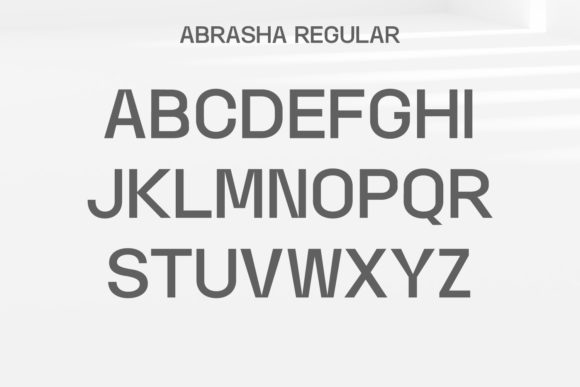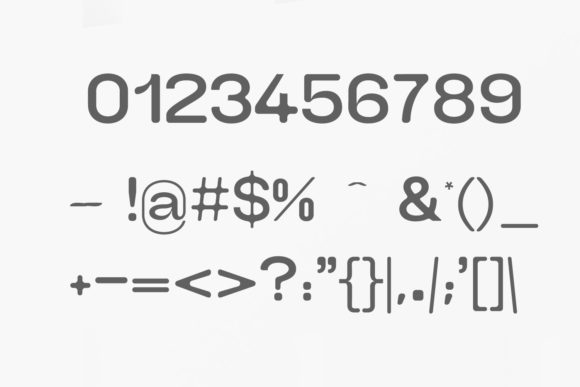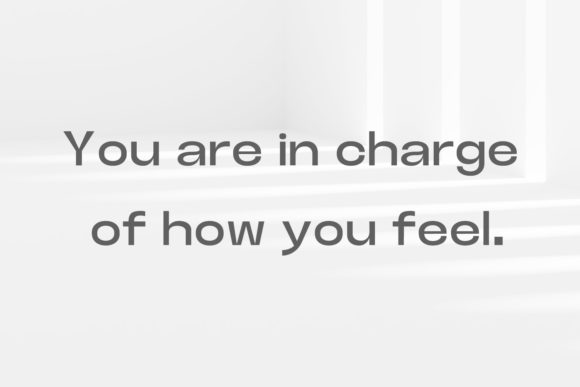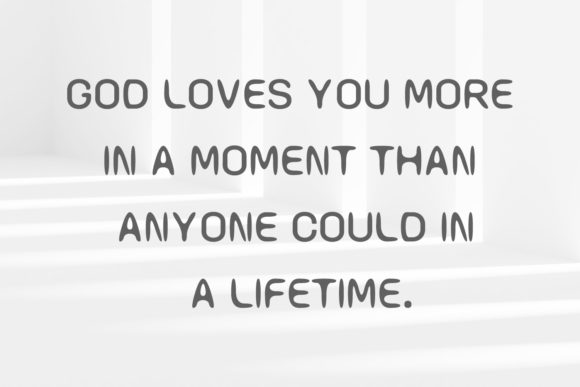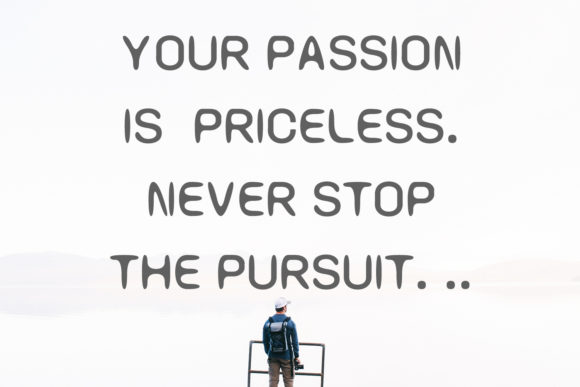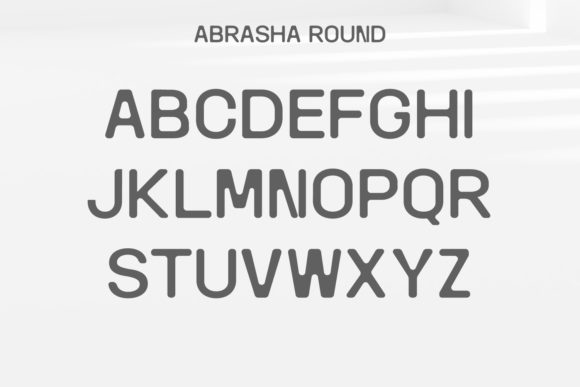
Discovering the Perfect Font for Every Design Project
Have you ever found yourself scrolling through font options, only to feel overwhelmed by the endless choices? I know I have. As a designer, I’ve spent countless hours searching for the perfect font to bring my creative ideas to life. But what if I told you that I’ve stumbled upon a font that’s been a game-changer for me? Introducing the Abrasha Family Font, a minimal rounded sans serif family that’s perfect for any design project.
With its three included weights, the Abrasha Family Font is an incredibly versatile tool that can be used for logos, invitations, texts, presentations, and so much more. Its clean and elegant design makes it a valuable asset for designers, allowing them to create visually appealing and professional-looking designs with ease.
Abrasha Family Font Key Features
- Font Family: Abrasha is a family of fonts that includes 6 different styles: Regular, Italic, Bold, Bold Italic, Condensed, and Condensed Bold.
- Character Set: Supports a wide range of characters, including Latin, Cyrillic, and Greek alphabets, as well as punctuation and special characters.
- Size: The font family includes 5 different font sizes: 12pt, 14pt, 16pt, 18pt, and 20pt.
- Resolution: Optimized for use at high resolutions, including 300 DPI and 600 DPI.
- Unique Characteristics: Abrasha is known for its elegant and refined design, with subtle flair and sophistication. It features a unique blend of traditional and modern elements, making it suitable for a wide range of applications, from business and marketing to publishing and design.
Abrasha Family Font Review
Overall, I think the Abrasha Family Font is a solid addition to any designer’s toolkit. Here’s what I like about it:
- ✨ The font has a unique, hand-drawn feel that sets it apart from more common serif or sans-serif fonts.
- ✨ The Abrasha Family Font has a wide range of weights and styles, making it versatile for various design applications.
- ✨ The font is highly customizable, with options for adjusting letter spacing, line height, and more.
- ⚠️ The font may not be ideal for body text, as the unique style can be distracting in large blocks of text.
- ⚠️ Some of the weights may not be as smooth or consistent as others, which can affect the overall look of a design.
Overall, I think the Abrasha Family Font is a great choice for designers looking to add some personality to their work. While it may have some limitations, the unique style and customization options make it a valuable addition to any design toolkit.
Tips for Getting the Most Out of Abrasha Family Font
To get the most out of Abrasha Family Font, use it for:
- Headings and titles for a unique and elegant look.
- Body text for a cohesive and professional design.
- Branding and logo design for a distinctive and memorable look.